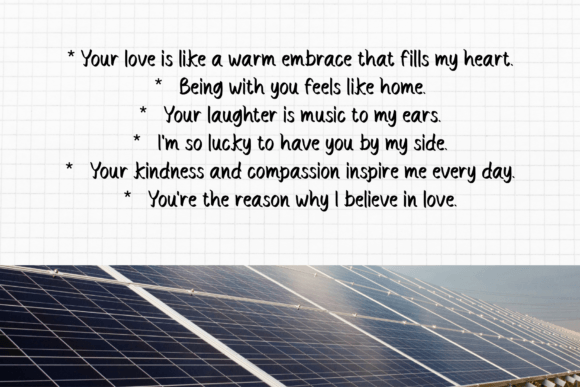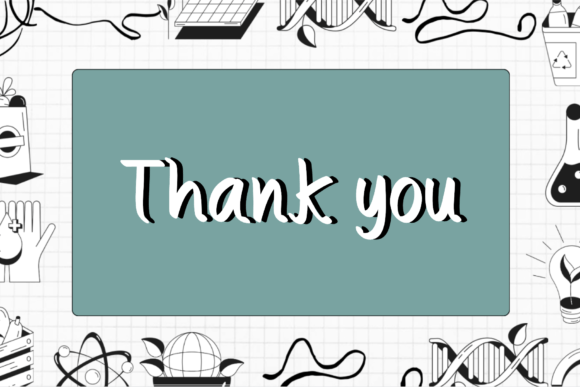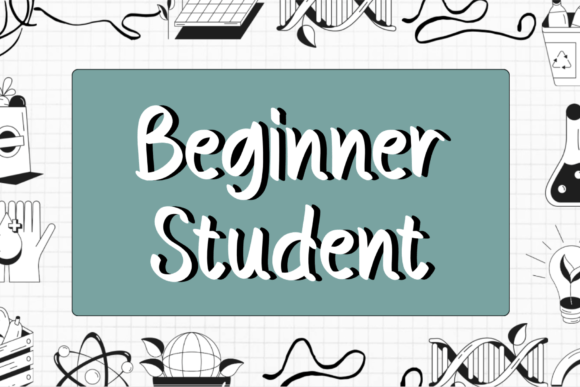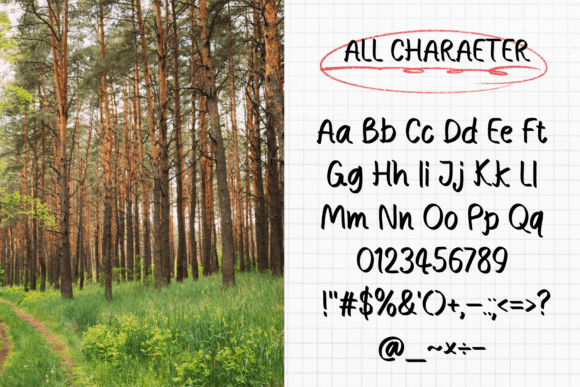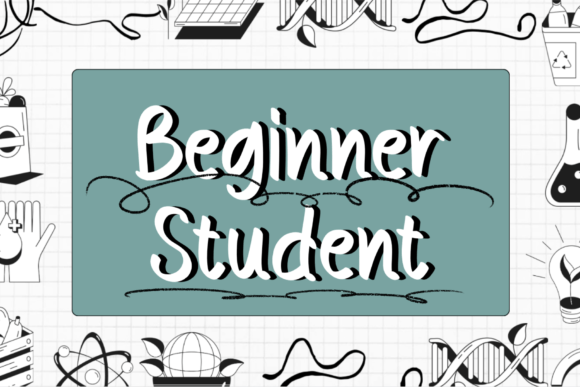
Introducing the Beginner Student Font: A Friendly and Approachable Typeface for Learning Materials
When it comes to creating educational resources, the right font can make all the difference. A font that is clean, legible, and engaging can help students of all ages absorb information and stay focused on the content. That’s why we’re excited to introduce the Beginner Student font, a friendly and approachable typeface designed specifically for learning materials.
Designed with Readability in Mind
The Beginner Student font is carefully crafted to ensure optimal readability, making it perfect for textbooks, workbooks, study guides, and other educational resources. Its clean and simple design eliminates distractions, allowing learners to focus on the content and absorb information with ease.
Whether you’re a teacher, educator, or designer creating learning materials, the Beginner Student font is the perfect companion. Its approachable and friendly style helps to create a positive learning environment, making it ideal for students of all ages and skill levels.
Key Features of the Beginner Student Font
- Clean and Legible Design: The Beginner Student font features a clean and simple design that ensures optimal readability, even at small font sizes.
- Approachable and Friendly Style: The font’s friendly and approachable style helps to create a positive learning environment, making it perfect for students of all ages.
- Highly Versatile: The Beginner Student font is highly versatile and can be used for a wide range of educational resources, including textbooks, workbooks, study guides, and more.
- Easy to Read: The font’s clear and concise letterforms make it easy for learners to read and understand, reducing eye strain and fatigue.
The Beginner Student font offers a range of benefits for designers and crafters creating educational resources. Its clean and legible design makes it easy to use and pair with other fonts, while its approachable style helps to create a positive and engaging learning environment.
Whether you’re creating digital or print materials, the Beginner Student font is the perfect choice. Its highly versatile design makes it suitable for a wide range of applications, from textbooks and workbooks to study guides and educational posters.
Tips for Using the Beginner Student Font
- Pair with Other Fonts: The Beginner Student font pairs well with other fonts, making it easy to create visually appealing and engaging learning materials.
- Use for Headings and Body Text: The font’s clean and legible design makes it suitable for both headings and body text, ensuring consistency throughout your learning materials.
- Experiment with Font Sizes: The Beginner Student font is designed to be readable at a range of font sizes, making it perfect for creating materials for different age groups and skill levels.
The Beginner Student font is a friendly and approachable typeface designed to enhance learning materials and educational resources. Its clean and legible design ensures optimal readability, making it easy for learners to absorb information and engage with the content. Whether you’re a teacher, educator, or designer, the Beginner Student font is the perfect companion for creating engaging and effective learning materials.
So why not give the Beginner Student font a try? With its highly versatile design and approachable style, it’s the perfect choice for creating educational resources that inspire and engage students of all ages.